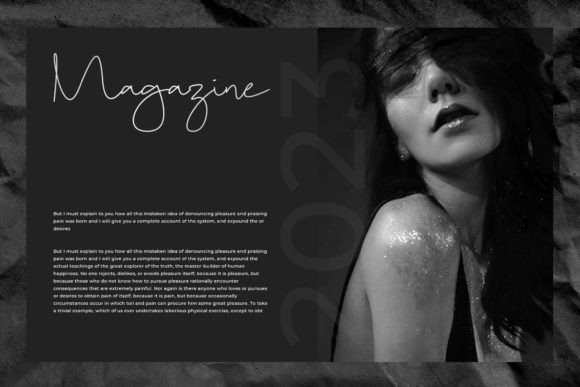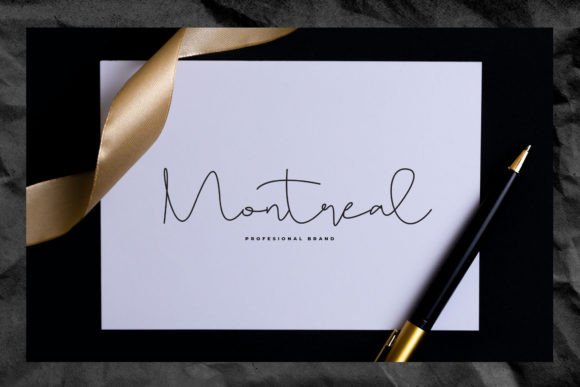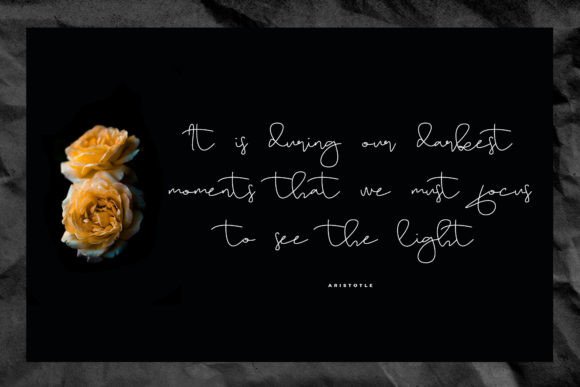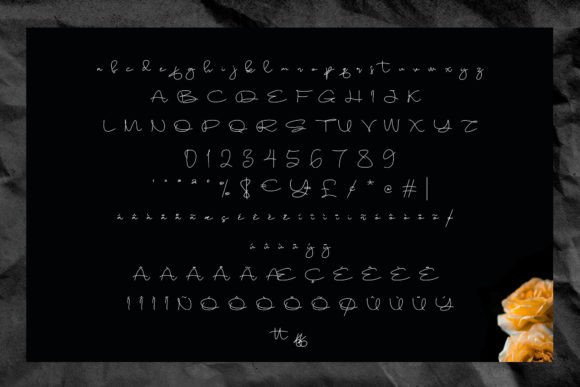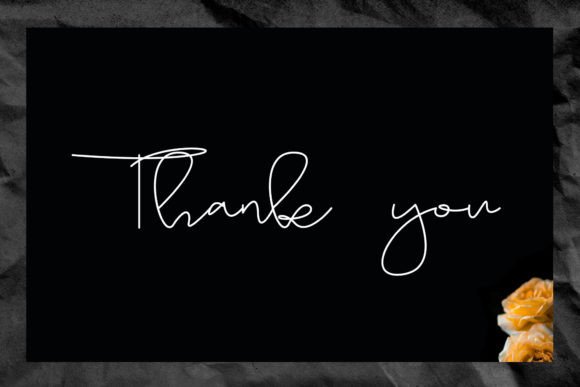
Introduction to Sameday Font
Have you ever been working on a creative project, and suddenly, the perfect font pops into your mind? For designers, this is a moment of pure joy, and it’s what makes the process so rewarding. The right font can make or break a design, and that’s why we’re excited to introduce you to the Sameday Font, a delicate and elegant handwritten font that’s sure to impress.
With its high quality design and well-balanced letters, the Sameday Font is a masterpiece that’s perfect for any creative project. Whether you’re working on a design for a transparent background or need a design resource for a free download, this font is sure to deliver. Its incredibly versatile style makes it a valuable asset for designers, allowing you to create spectacular designs that stand out from the crowd.
Key Features of Sameday Font
Honest Review: Sameday Font
Sameday Font is a high-quality design resource perfect for any creative project. It offers a unique and versatile font that can be easily integrated into various design platforms.
Tips for Getting the Most Out of Sameday Font
For optimal results, use Sameday Font on a transparent background to give your design a clean and modern look. Experiment with different font sizes and styles to create a unique visual effect.
Sameday Font is ideal for various creative projects, including logos, brochures, and business cards. Its high-quality design makes it perfect for presentations, social media graphics, and web design.